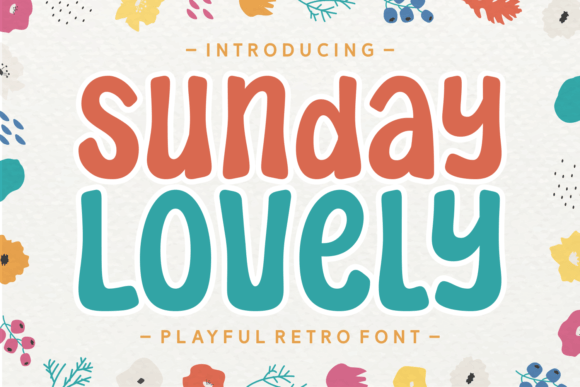
Introducing Sunday Lovely Font, the ultimate solution for your magazine design aspirations! This stunning display font exudes timeless elegance, with its graceful curves and retro charm. Let Sunday Lovely Font transport you to a bygone era, where magazines were not just informative but works of art.
Crafted by the renowned Ade (7NTypes), Sunday Lovely Font is a versatile masterpiece that empowers you to create unforgettable designs. Whether you're designing a captivating greeting card or crafting a powerful headline, this font will add a touch of sophistication and allure. Its playful nature makes it ideal for any project that demands a hint of whimsy and character.
Beyond its aesthetic appeal, Sunday Lovely Font also boasts exceptional readability, ensuring that your message is conveyed with clarity and impact. Imagine your magazine spreads adorned with this exquisite font, capturing the attention of readers and leaving a lasting impression.
Join the ranks of discerning designers who have discovered the magic of Sunday Lovely Font. Let it be your secret weapon for creating magazine designs that stand out from the crowd and captivate your audience. Every time you use Sunday Lovely Font, you're not just adding a font to your design—you're adding a touch of timeless style and enduring charm.